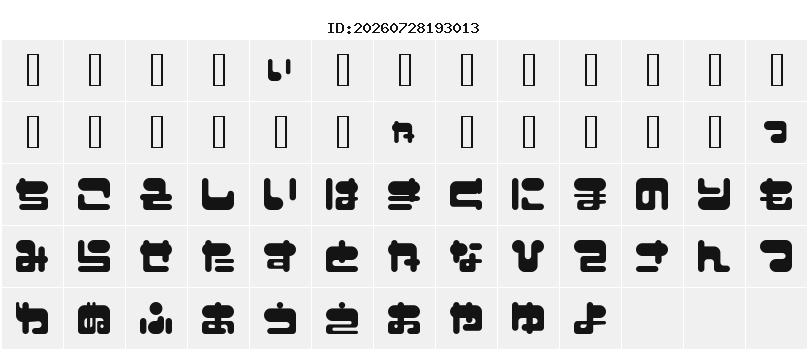
I2FuwafuwaFururu Preview
• Font Name: I2FuwafuwaFururu
• Font Style: HS
• Full Font Name: I2FuwafuwaFururu HS
• PostScript Name: I2FuwafuwaFururuHS
About I2FuwafuwaFururu.ttf
I2FuwafuwaFururu.ttf is a modern, elegant sans-serif font designed for ultimate readability and visual harmony. Perfect for branding, headlines, web design, and print materials.